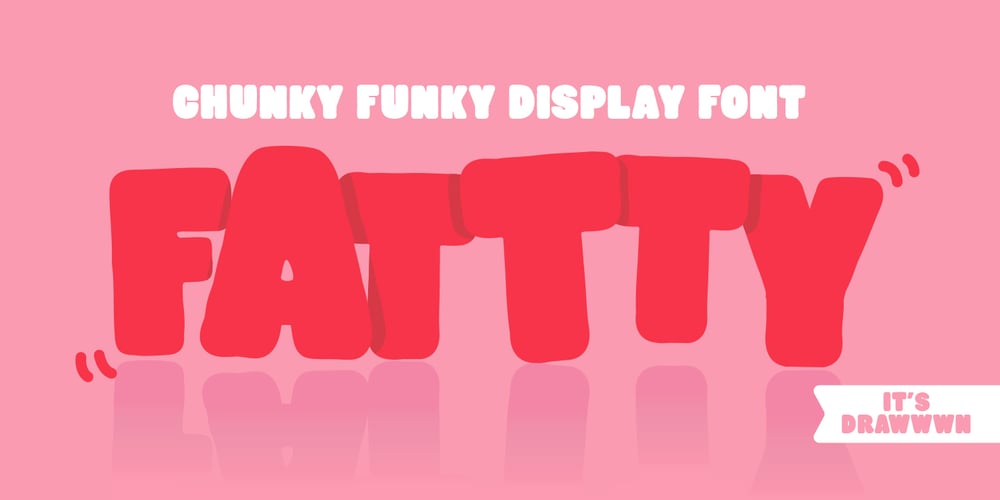
Fattty Font Family was designed by Ryan Thomas and published by Drawwwn. Fattty contains 1 styles and family package options. Fattty is a chunky fun font with plenty of wobbly bits. It’s perfect for bold brands and funky projects. It’s friendly curves are a great fit in kids books or on chubby posters. But remember, say it loud I’m fat and I’m proud!